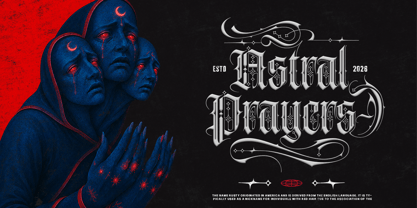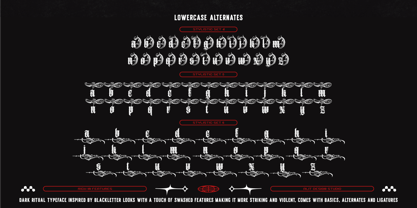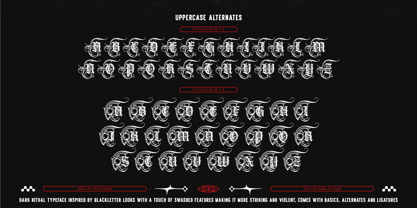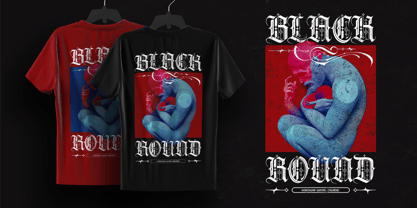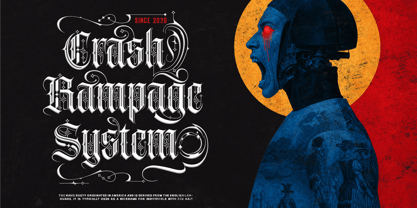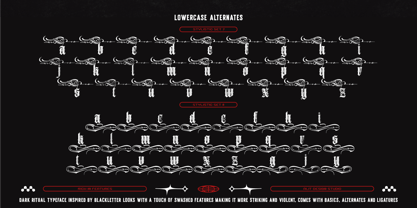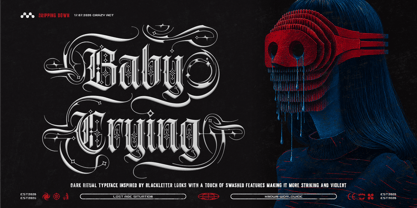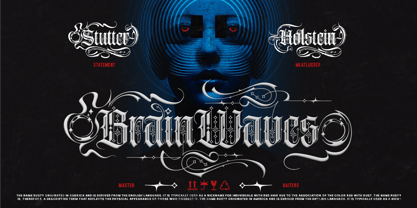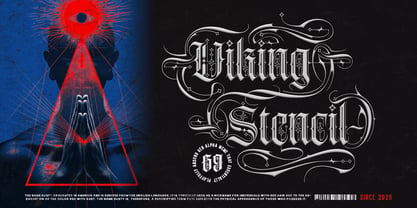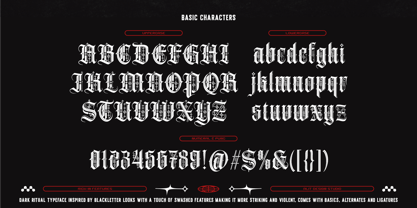
Dark Ritual
Dark Ritual Typeface – A Striking & Feature-Rich Blackletter Font
Embrace the shadows with Dark Ritual Typeface, a mesmerizing blackletter font designed to make a striking and bold statement. Inspired by classic gothic lettering, Dark Ritual introduces a modern, aggressive edge infused with sweeping swashes and intricate detailing. Whether you are aiming for an eerie, sarcastic, or aggressively stylish aesthetic, this typeface delivers an unmistakably powerful presence that demands attention.
Perfect for projects that require a touch of the macabre or rebellious spirit, Dark Ritual is highly versatile. It is the ultimate typography choice for metal band merchandise, streetwear apparel, tattoo studio branding, striking posters, album covers, and edgy editorial designs.
Incredible Features: Dark Ritual is not just a standard font; it is a massive typographic toolkit designed for ultimate customization. It comes packed with an astounding 1002 glyphs, giving you limitless creative freedom.
• Extensive Character Set: Complete uppercase and lowercase characters.
• Numerals & Punctuation: Full numbers and symbols included.
• Multilingual Support: Broad language support to reach a global audience.
• 13 Stylistic Sets: Packed with alternates ranging from SS01 to SS13 for endless customization and a hand-lettered feel.
• Ligatures & Swashes: Beautifully crafted ligatures and dramatic swashes to seamlessly connect characters and add an elegant yet fierce flair.
Ideal For:
• Apparel & Streetwear Design (T-shirts, hoodies, jackets)
• Music Industry (Album art, band logos, concert posters)
• Tattoo and Barbershop Branding
• Book Covers (Horror, fantasy, thriller)
• Beverage Packaging (Craft beer, liquor labels)
• Gaming & E-sports Logos
Step into the dark and elevate your designs with the Dark Ritual Typeface today!